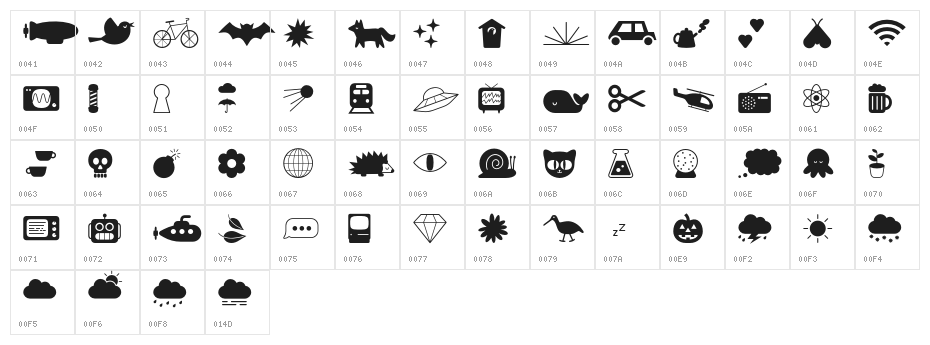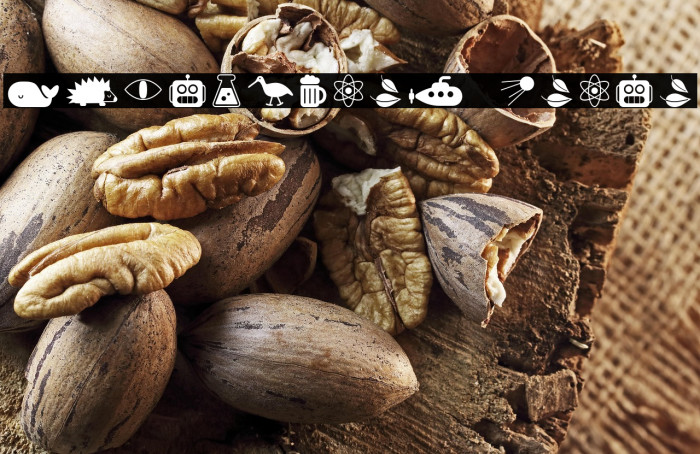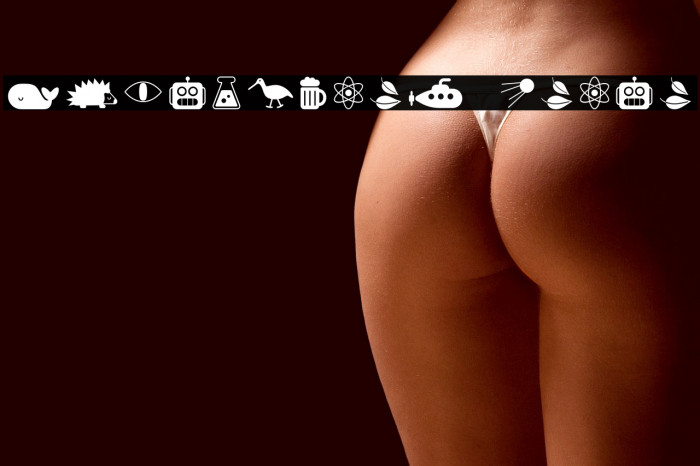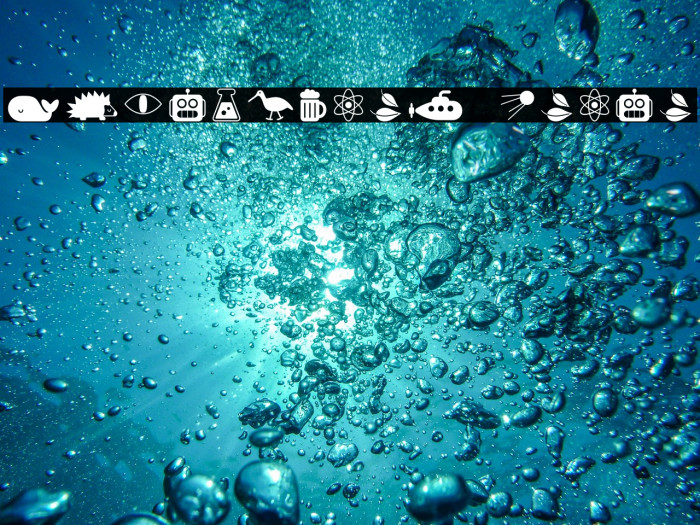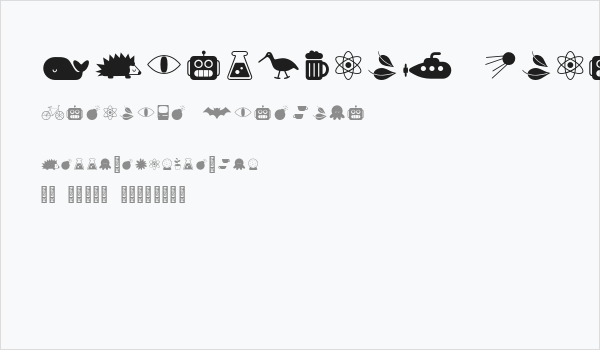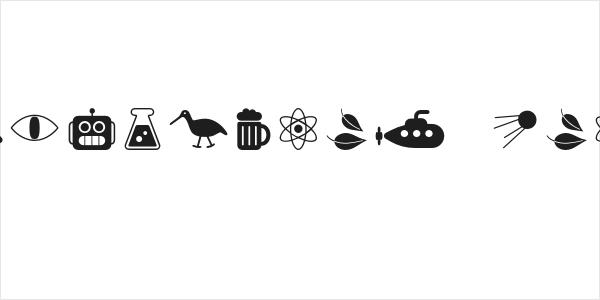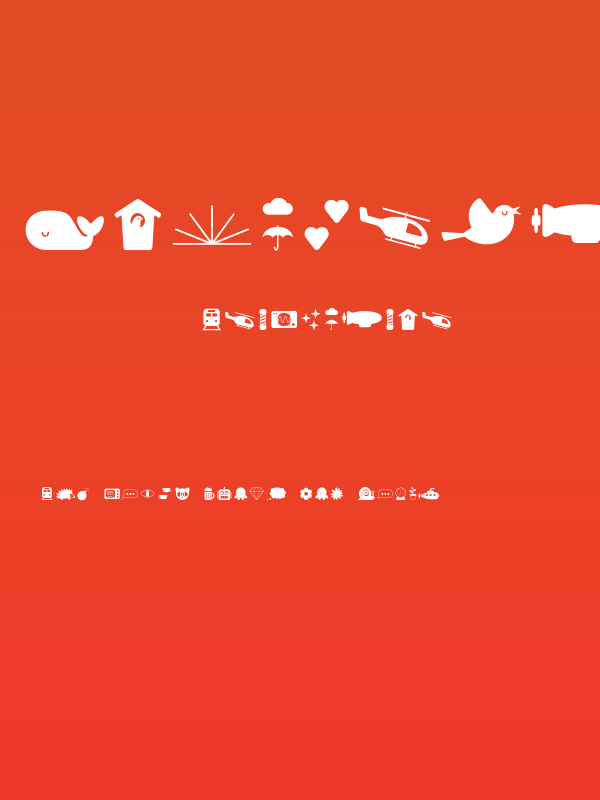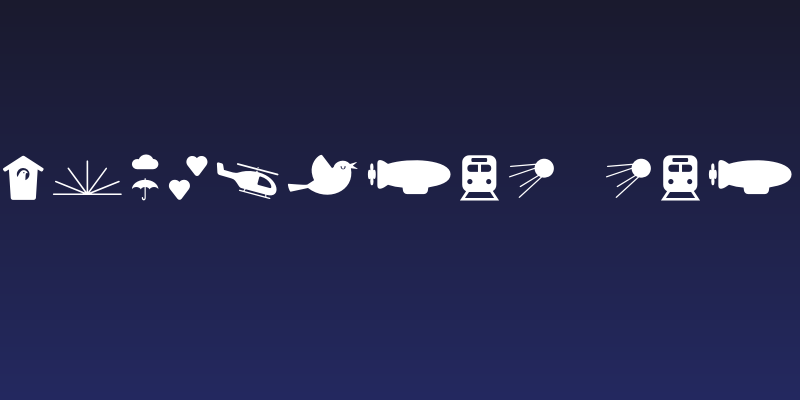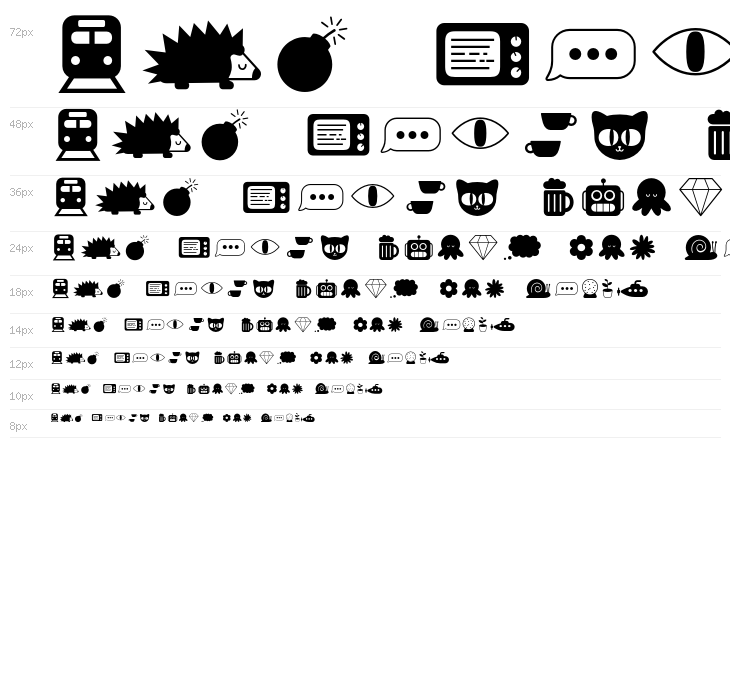
Whirlybats Start Font
Whirlybats Start Description
| Overall Style | Playful, Whimsical, Decorative |
| Use Case | Icons, Decorative elements, Themed graphics |
| Proposed Projects | Children's books, educational materials, playful branding, infographics, party invitations, stickers. |